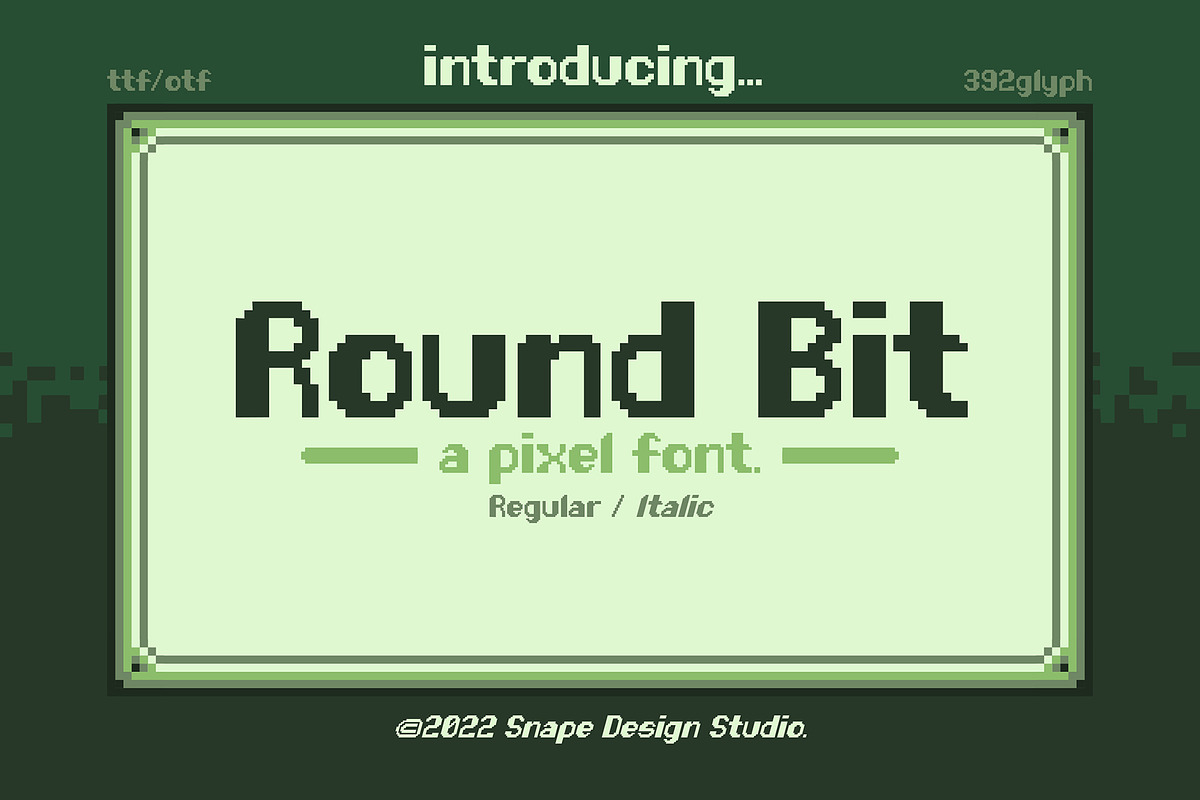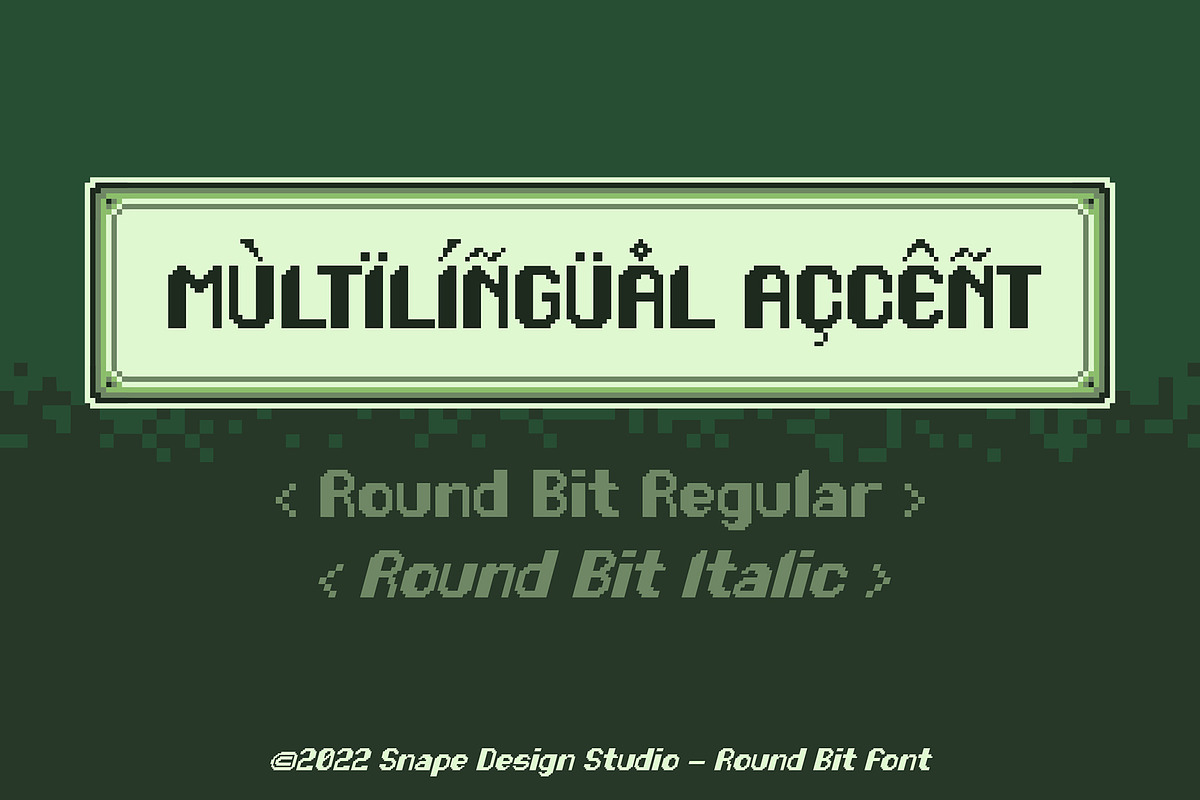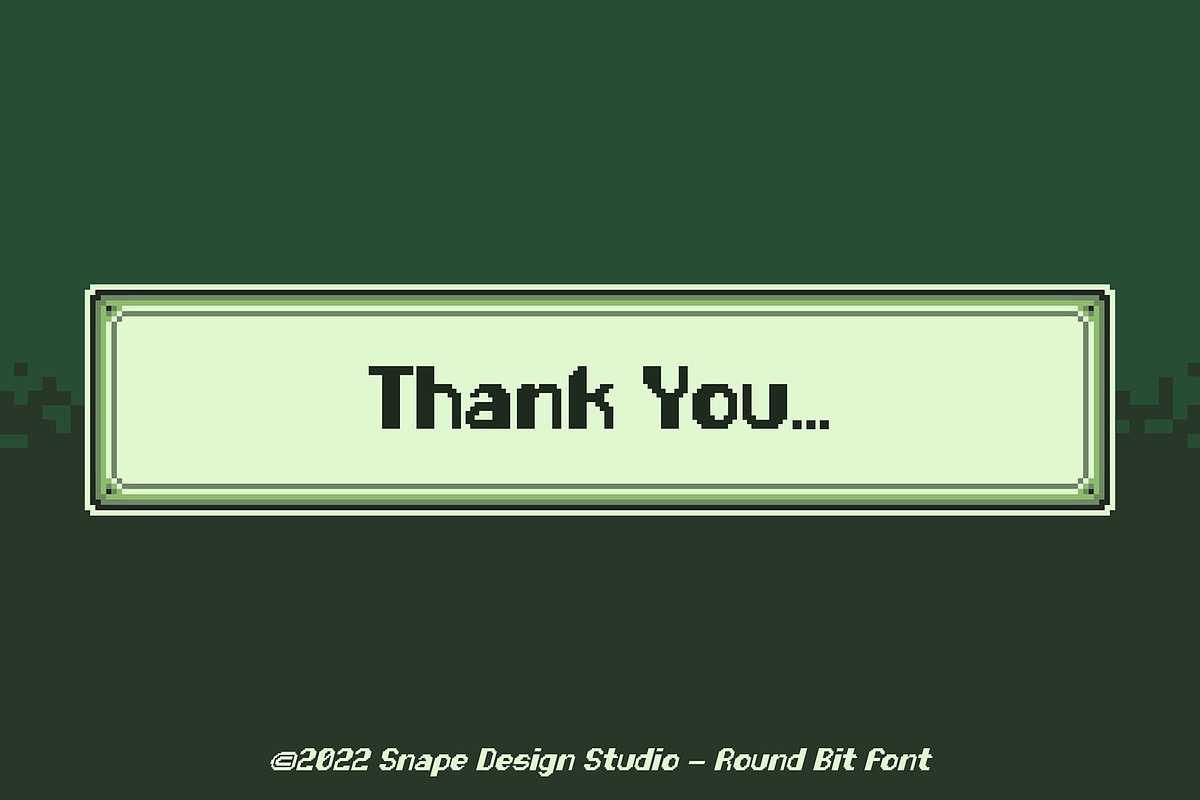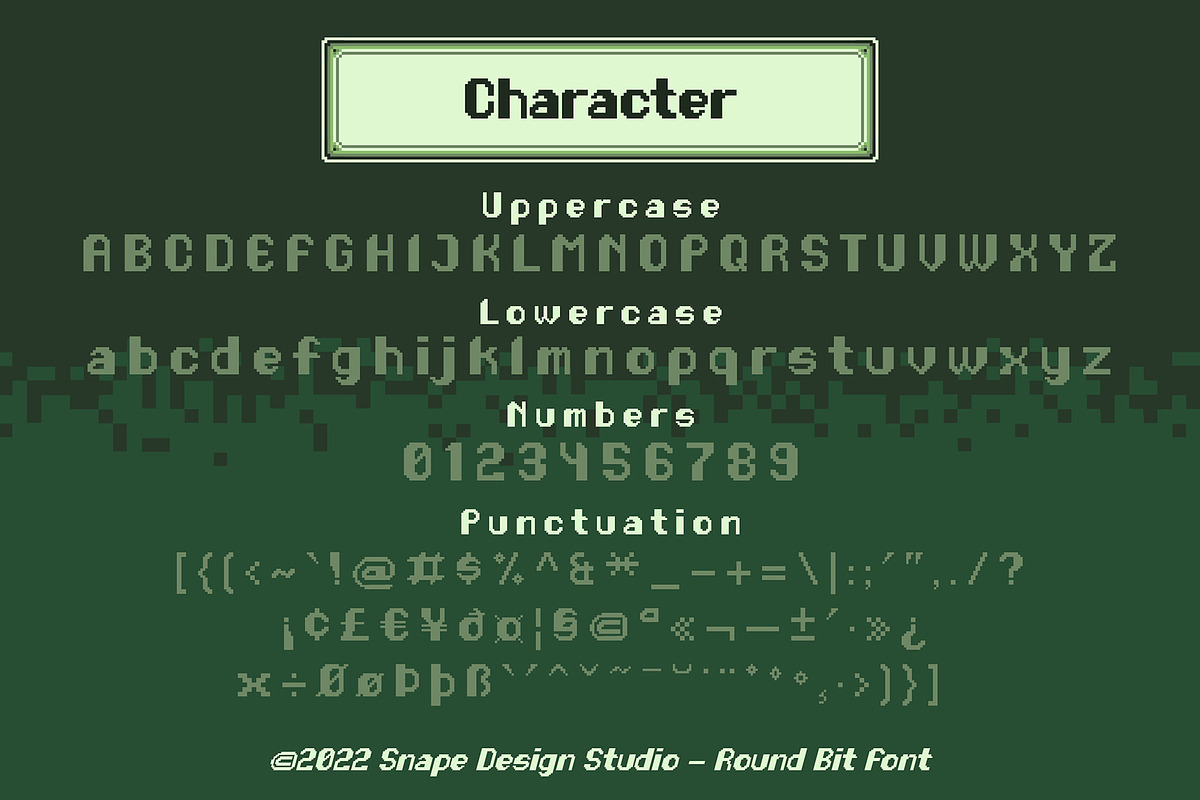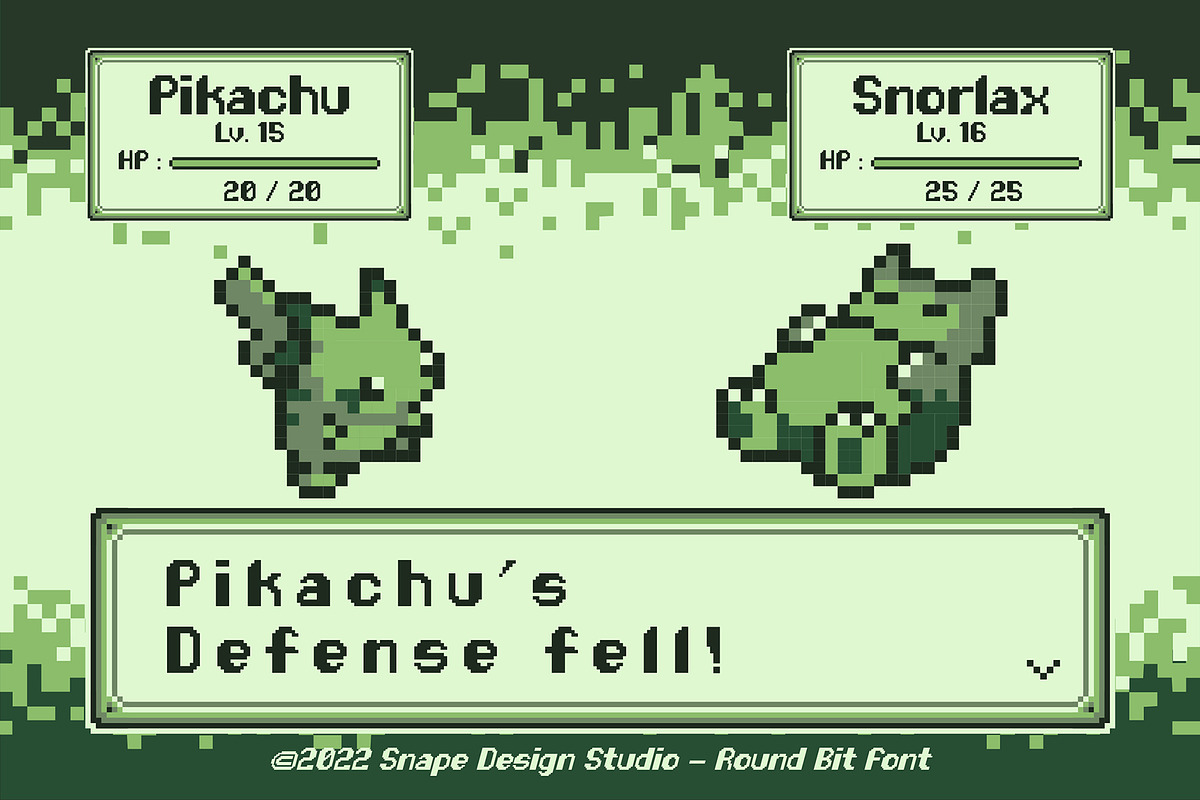
Round Bit - Pixel Font
Round Bit is a retro pixel font style, perfect for retro game design theme, Also suitable for movie, documenter, film, logo, poster, game, book cover, headlines, title and many more projects. Add this font to your creative ideas and notice how it will make them stand out!